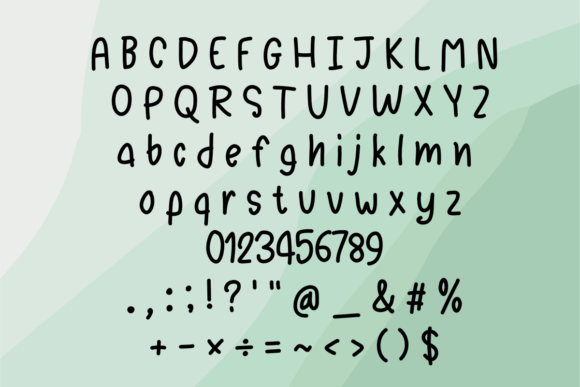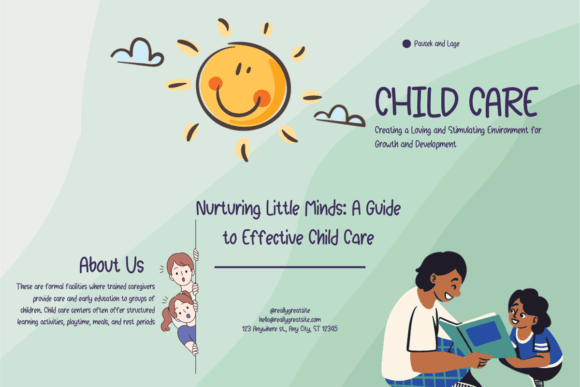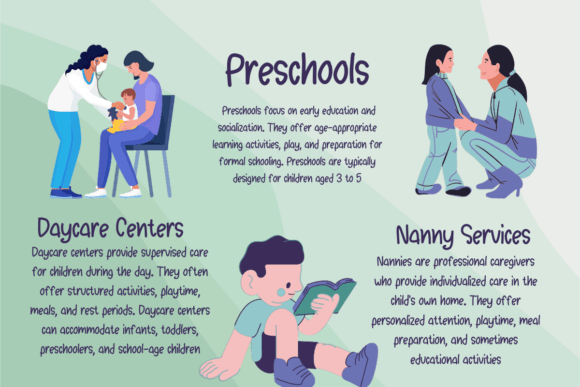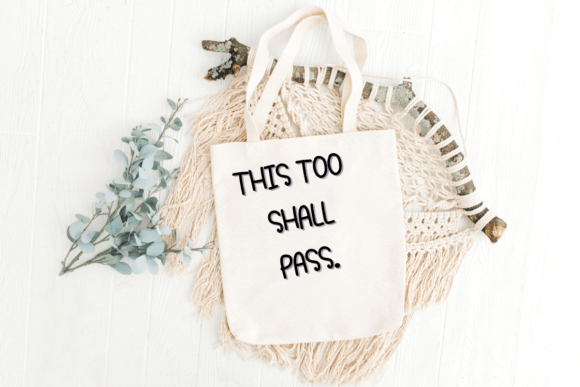
Coconut Font: A Whimsical Handwritten Style for Creative Projects
Are you a designer, crafter, or DIY enthusiast looking for a unique and playful font to add a personal touch to your projects? Look no further than Coconut Font, a charming handwritten style that’s perfect for a variety of creative applications. In this article, we’ll explore the features and uses of Coconut Font, and show you how to make the most of this versatile and delightful font.
What is Coconut Font?
Coconut Font is a beautiful handwritten font that’s designed to resemble casual, handwritten script. With its flowing lines and whimsical feel, it’s perfect for adding a personal touch to your projects. Whether you’re taking notes, writing a diary, or creating greeting cards, Coconut Font is a great choice. But its uses don’t stop there – this font is also ideal for a wide range of design projects, from banners and social media posts to mugs, cards, shirts, and more.
Features of Coconut Font
So what makes Coconut Font so special? Here are just a few of its key features:
- Handwritten style: Coconut Font has a warm, personal feel that’s perfect for creating handmade-style projects.
- Versatile: This font is suitable for a wide range of projects, from notes and diaries to designs and crafts.
- Easy to read: Despite its playful feel, Coconut Font is clear and easy to read, making it perfect for both digital and print projects.
Uses for Coconut Font
So what can you use Coconut Font for? The possibilities are endless! Here are a few ideas to get you started:
- Notes and journals: Add a personal touch to your notes and journals with Coconut Font.
- Greeting cards: Create beautiful, handmade-style greeting cards for special occasions.
- Banners and signs: Use Coconut Font to create eye-catching banners and signs for parties, events, and more.
- Social media posts: Add a touch of personality to your social media posts with Coconut Font.
- Mugs and ceramics: Create custom mugs, plates, and other ceramics with Coconut Font.
- T-shirts and apparel: Design unique and stylish t-shirts, hoodies, and other apparel with Coconut Font.
- Stationery and paper crafts: Use Coconut Font to create beautiful stationery, cards, and other paper crafts.
Tips for Using Coconut Font
Here are a few tips for getting the most out of Coconut Font:
- Experiment with colors: Coconut Font looks great in a variety of colors, so don’t be afraid to experiment and find the perfect hue for your project.
- Mix and match: Combine Coconut Font with other fonts and graphics to create unique and eye-catching designs.
- Play with sizes: Coconut Font looks great in a range of sizes, from small and delicate to large and bold.
Coconut Font is a versatile and delightful handwritten font that’s perfect for designers, crafters, and DIY enthusiasts. With its flowing lines and whimsical feel, it’s ideal for adding a personal touch to a wide range of projects. Whether you’re creating notes, greeting cards, banners, or social media posts, Coconut Font is a great choice. So why not give it a try and see what amazing projects you can create?